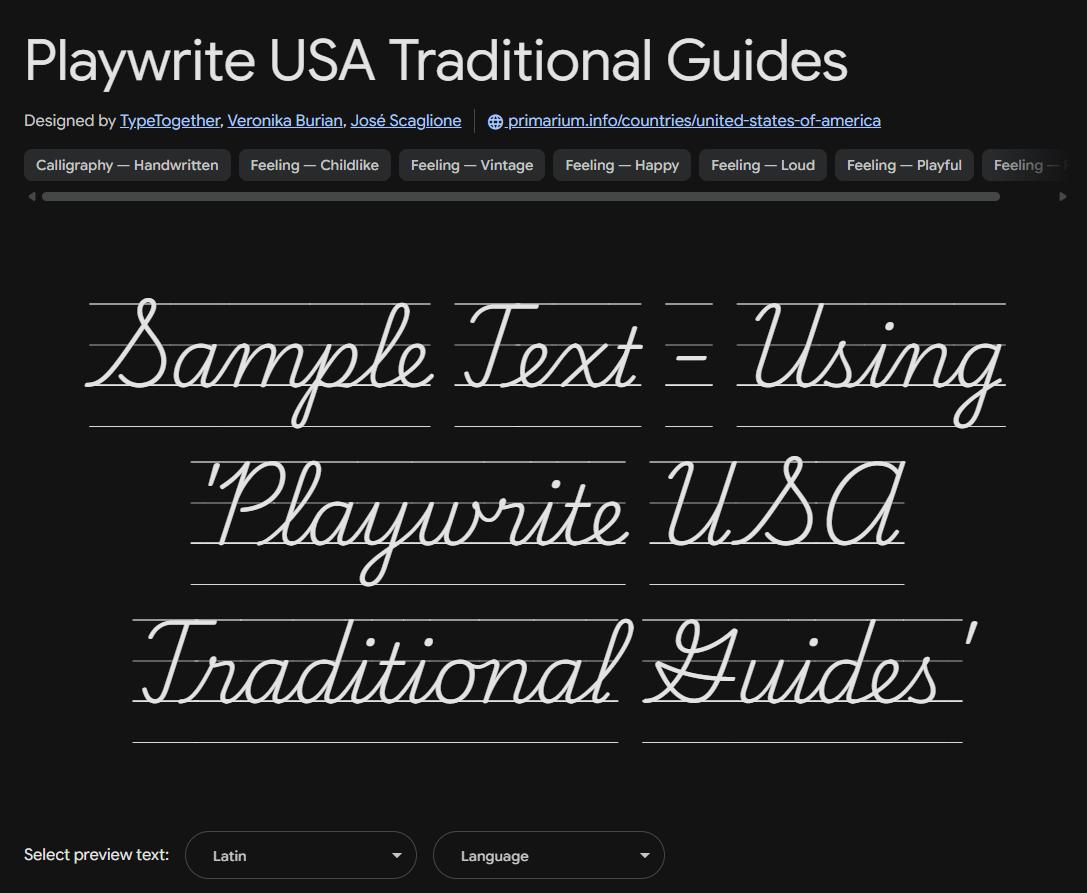
Playwrite USA Traditional Guides, meticulously engineered by the foundry TypeTogether under the creative direction of Veronika Burian and José Scaglione, functions as a sophisticated orthographic instrument that synthesizes pedagogical standards with advanced digital typography. This single-style typeface is uniquely characterized by its integrated baseline, waistline, and topline guides, which provide a literal architectural scaffold for the "Traditional" American handwriting model within the digital plane. By prioritizing precise vertical metrics and consistent x-height alignment, the font leverages specialized glyph construction to facilitate stroke-path recognition for emergent writers, transforming the character set into a functional educational tool. Through the strategic implementation of these structural rules, Playwrite USA Traditional Guides offers a high-fidelity typographic solution that bridges the gap between fluid cursive motion and the rigid geometric constraints required for penmanship instruction.
The Playwrite USA Traditional Guides font family functions as a sophisticated pedagogical bridge, utilizing advanced OpenType features to replicate the tactile irregularities of early American handwriting education through a rugged, calligraphic framework. This typeface balances the technical precision of modern font engineering with a vintage, childlike soul, where the rhythmic bounce of its strokes creates a loud and playful visual hierarchy that transcends basic legibility. By integrating the organic imperfections of handwritten ink with a robust x-height and happy, fluid ligatures, the font achieves a unique aesthetic that feels both nostalgic and energetically contemporary, offering a distinctive digital interpretation of the traditional penmanship guides used to shape cognitive motor skills.
Playwrite USA Traditional Guides, meticulously engineered by TypeTogether's Veronika Burian and José Scaglione, incorporates explicit didactic scaffolds-specifically horizontal guidelines for ascenders, mean lines, and baselines-that render it fundamentally incompatible with high-stakes corporate legalities, luxury brand positioning, or high-density technical data visualization. Because its morphology is rooted in primary pedagogical script development rather than optical legibility at small point sizes, the typeface fails to meet the stringent legibility thresholds required for pharmaceutical labeling or complex financial reporting, where its skeletal structure and rhythmic cursive joins would introduce significant cognitive load and potential misinterpretation of alphanumeric strings. In the context of typographic semiotics, utilizing a font designed for motor-skill acquisition in an environment requiring industrial-strength information architecture creates a functional mismatch, stripping a brand of professional gravitas and violating the requirements of high-speed OCR systems that struggle with the non-standardized connective strokes and artificial guides inherent to educational calligraphy.
The integrated horizontal guidelines provide a structured framework that anchors characters to a consistent height and alignment across the text block. By maintaining a fixed x-height and cap height ratio, these guides reduce cognitive load for learners by simulating physical ruled paper via precise geometric vector paths.
The presence of baselines necessitates a wider leading setting to prevent the guide lines of adjacent rows from overlapping or creating visual clutter. Expert typography dictates a line-height value of at least 150% to accommodate the descender space and ensure the mathematical integrity of the inter-line whitespace.
While primarily designed for instructional literacy materials, the font can serve as a decorative header when scaled to larger point sizes for emphasis. Effective header implementation requires manual kerning adjustments to manage the exaggerated exit strokes that characterize high-contrast calligraphic OpenType features.
Accurate rendering of cursive connections relies on software that fully supports OpenType advanced typography features, specifically standard and discretionary ligatures. The engine must interpret complex lookup tables within the font file to dynamically substitute contextual alternates, ensuring a seamless flow between glyphs at specific anchor points.
To maintain legibility on dark backgrounds, the thin guide lines should utilize a lower opacity or a muted secondary color compared to the primary letterforms. Applying a luminance ratio of at least 3:1 for the guides against the background prevents visual vibration while adhering to WCAG accessibility standards for non-text UI elements.
Aligning this font with a standard grid requires snapping the baseline of the guide lines to the document's underlying typographic baseline grid. Designers must often apply a custom vertical offset to compensate for the font's internal bounding box metrics, which include the extra vertical padding for the ruling lines.
This font family often provides multiple weights or stylistic sets that offer variations such as solid, dashed, or dotted guide line styles. Through the use of Stylistic Alternates or Character Variants, users can toggle between different ruled environments to match specific regional educational standards like the French Séyès or D'Nealian systems.
The characteristic rightward slant of the script creates a sense of forward momentum that influences the reader's eye path across the layout. A standard 15-degree italic angle necessitates increased right-hand margins to counterbalance the perceived optical weight shift caused by the glyphs' skewed axes.
The font is engineered with high-precision outlines to ensure crisp edges in high-resolution print applications and pedagogical worksheets. For digital screen use, the font utilizes sophisticated TrueType hinting to prevent the thin horizontal guidelines from disappearing or aliasing at lower pixel densities.
Clean, geometric sans-serifs provide the best contrast by offering a rigid, modern counterpoint to the fluid, rhythmic nature of the script. Pairing the script with a font like Helvetica or Montserrat creates a clear typographic hierarchy by leveraging distinct differences in stroke modulation and aperture width.